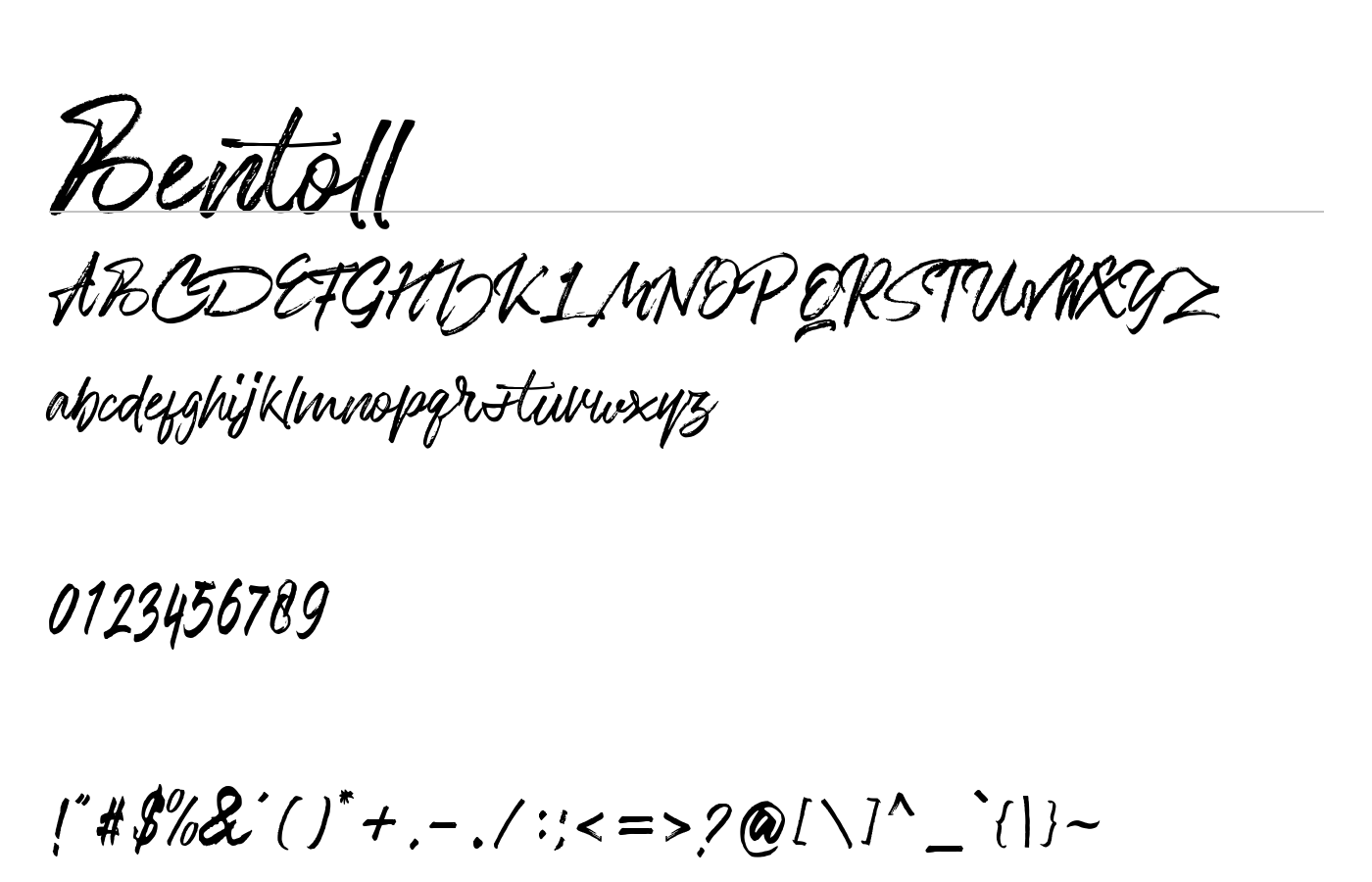
Bentoll is an expressive, brush-script font with a lively, hand-drawn feel that combines bold, textured strokes with elegant, flowing letterforms. Its dynamic style and casual sophistication make it perfect for creative branding, fashion, or artistic projects where personality and a handcrafted touch are desired. This font shines in headlines, logos, and packaging, adding a sense of vibrant originality and charm.
Bentoll Font
About Bentoll Font